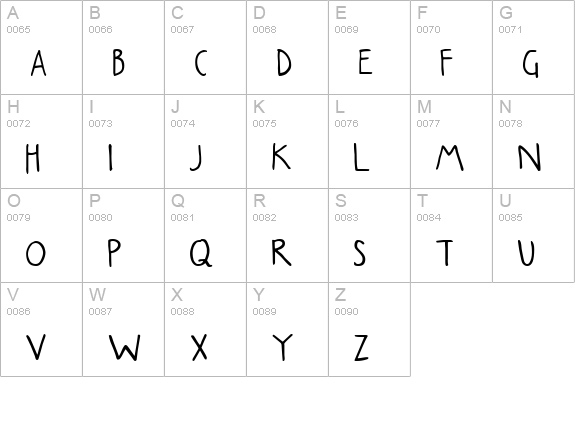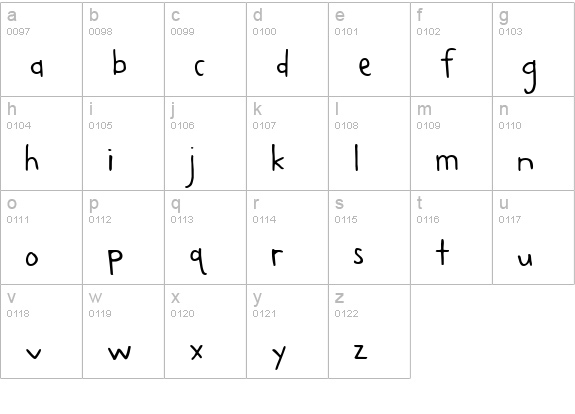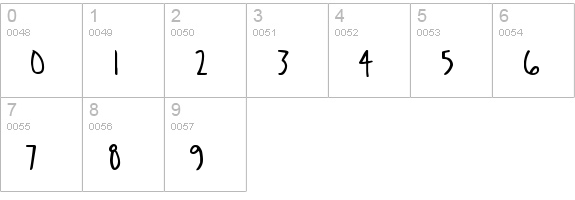
CK Higgins Handprint Font Details
Introducing CK Higgins Handprint font, a whimsical and charming typeface that brings a touch of handcrafted elegance to your designs. This delightful font captures the essence of playful creativity with its irregular lines and unique hand-drawn look. Perfect for adding a personal touch to invitations, greeting cards, posters, and more, CK Higgins Handprint font is sure to make your projects stand out. Best of all, CK Higgins Handprint font is completely free to download at FontsMarket.com. Simply visit the website and start using this lovely font in your designs today. Whether you're a designer looking to add a fun twist to your projects or a DIY enthusiast wanting to personalize your creations, CK Higgins Handprint font is the perfect choice. Don't miss out on this wonderful opportunity to enhance your designs with this beautiful and free font!